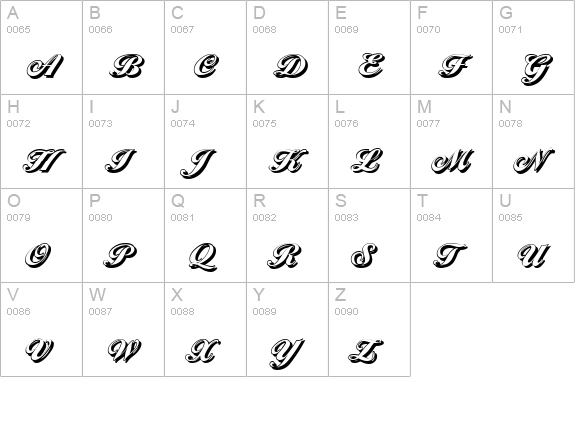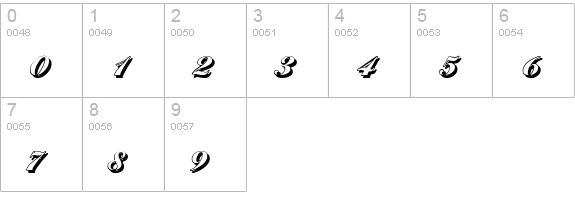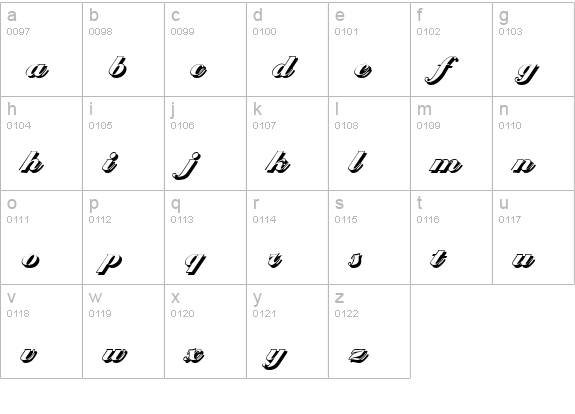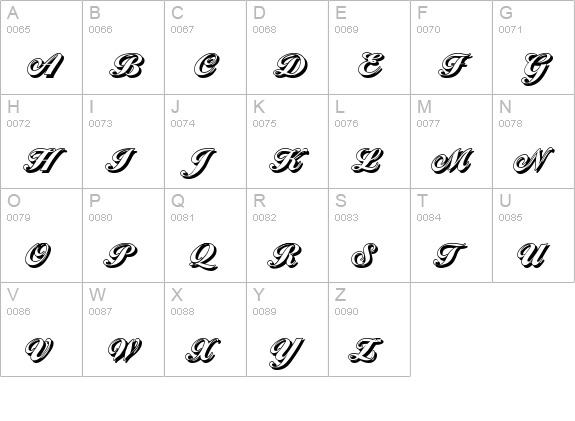
BallantinesShadow-Black-Regular is a maximum-weight, dramatic variant in the BallantinesShadow typeface family \xE2\x80\x94 well suited to maximum-impact headlines, posters, and packaging.
BallantinesShadow-Black-Regular font is a bold and striking typeface that exudes a sense of sophistication and elegance. With its unique shadow effect, this font is perfect for creating eye-catching headlines, titles, and logos that demand attention. The sharp edges and clean lines of BallantinesShadow-Black-Regular font make it a versatile choice for a wide range of design projects. Best of all, BallantinesShadow-Black-Regular font is available for free download at FontsMarket.com. Whether you're a designer looking to add a touch of drama to your work or a business owner seeking a distinctive font for your branding, BallantinesShadow-Black-Regular font is the perfect choice. Download it today and elevate your designs with this stunning and impactful typeface.